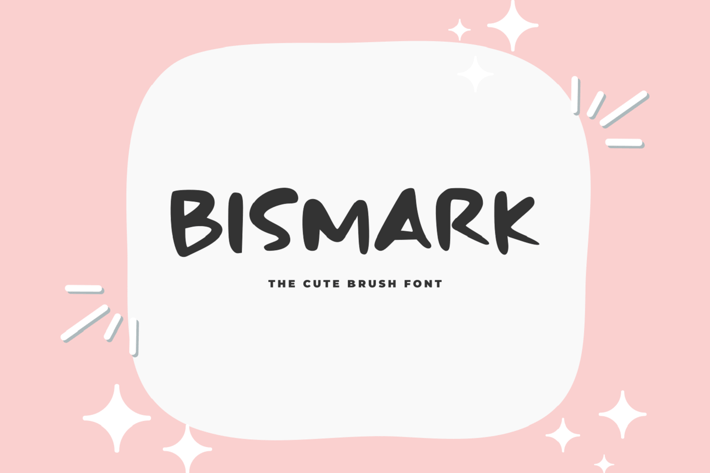
Bismark - The Cute Brush Font
Bismark - The Cute Brush Font, it’s perfect for logos, name card, magazine layouts, invitations, headers, or even large-scale artwork.